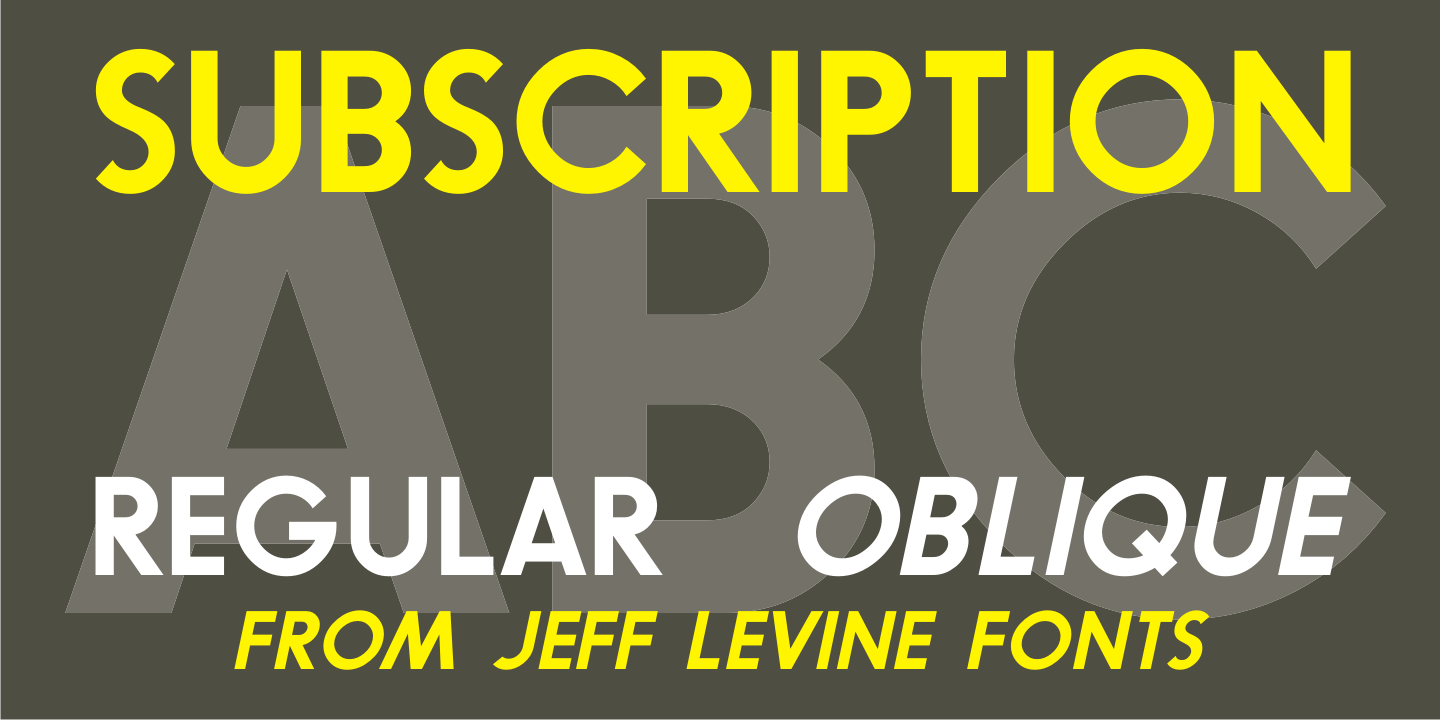
Subscription
Subscription JNL is the companion font to Outline Sans JNL with the inside portion stripped away to leave a solid character set remaining.
The typeface is available in both regular and oblique versions.
Subscription includes 213 glyphs.